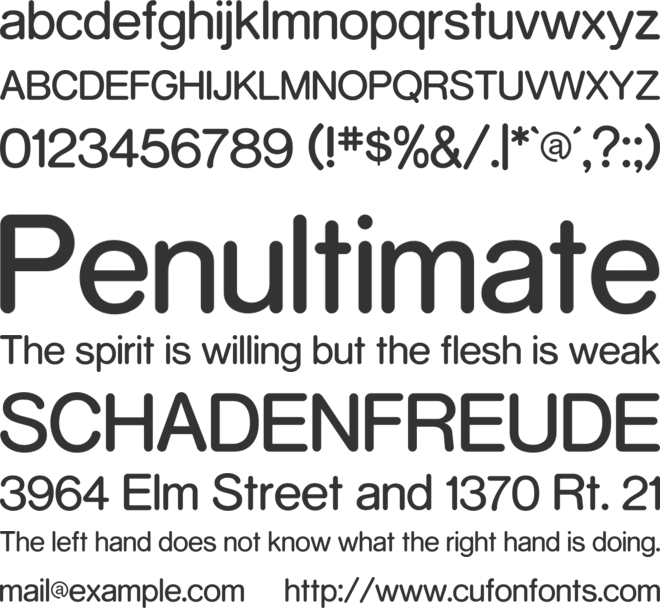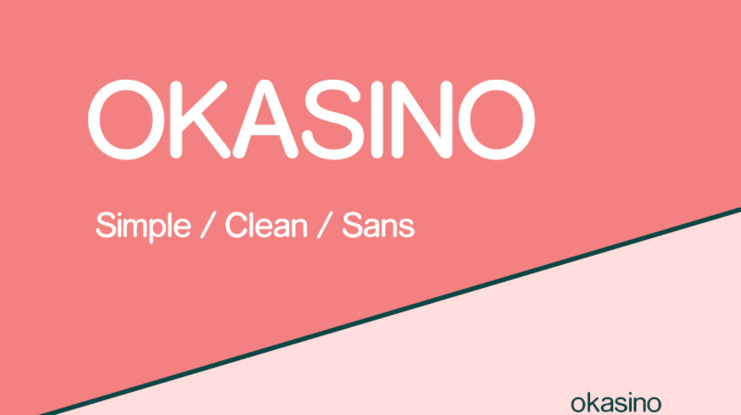
OKASINO Font
A simple, clean, sans font designed by Ollie Kasino for the OK Casino website. The font is suitable for blog titles, headers, promotional text, call to actions and more. OKASINO is used extensively throughout the https://okcasino.co.uk/ website to showcase casino bonuses, free spins, new player promotions and more. This font is free for personal and commercial use.